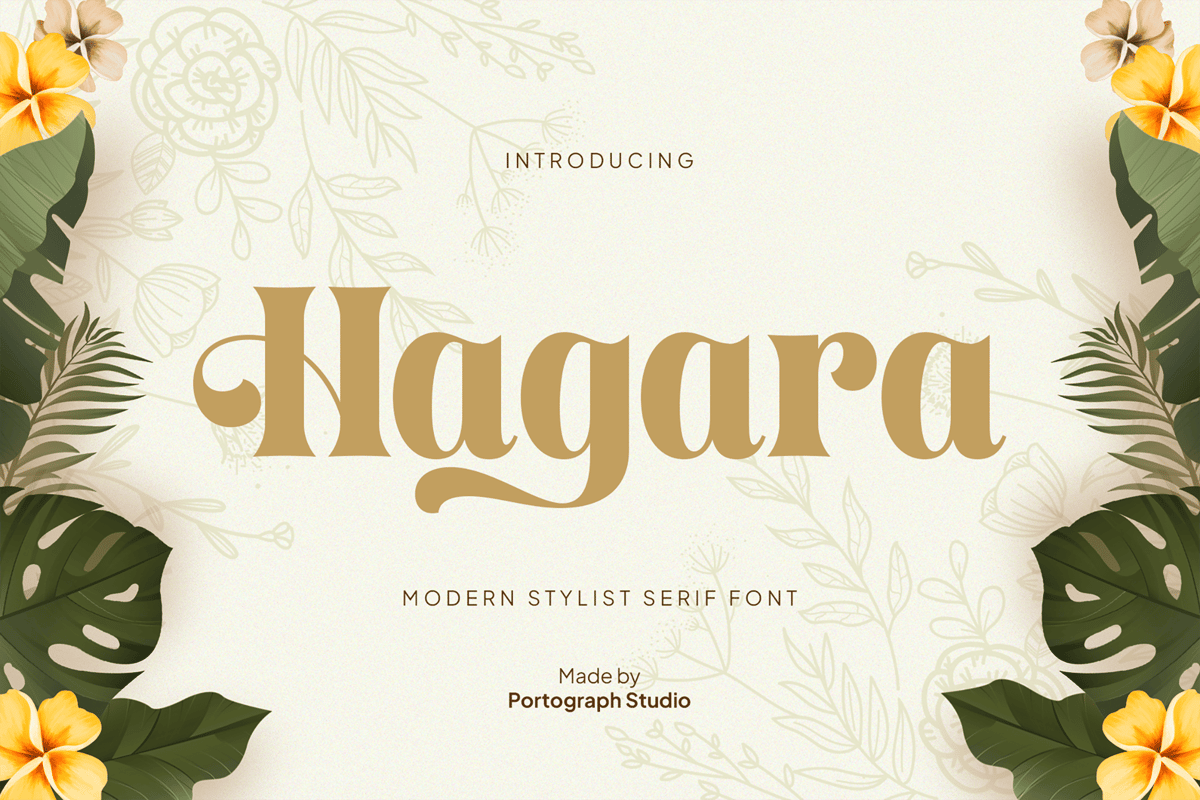
Hagara – Luxury Font
Elevate your designs with Hagara, a luxury serif font that combines unique character with sophisticated elegance. This distinctive typeface features an attractive appearance that pairs beautifully with solid character fonts, making it ideal for creating memorable brand identities. Hagara brings a refined handwritten taste to any project while maintaining professional readability. Perfect applications include: Branding projects and logo design Wedding designs and invitations Social media posts an...